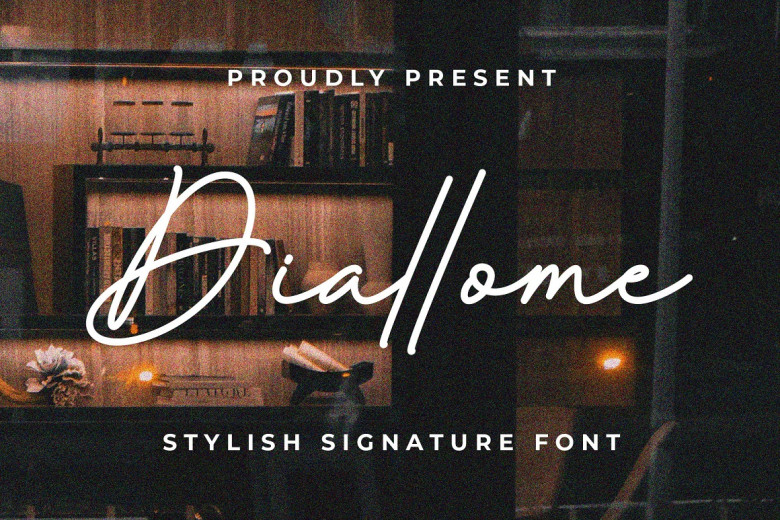
Diallome Font
Diallome is a stylish signature font that has a fancy and cool flow, would look very luxurious for your wedding invitations, fashion logo, brand logo, thank you cards, business cards, watermarks and every other design that will needs a handwritten taste.
Diallome Signature Script Font